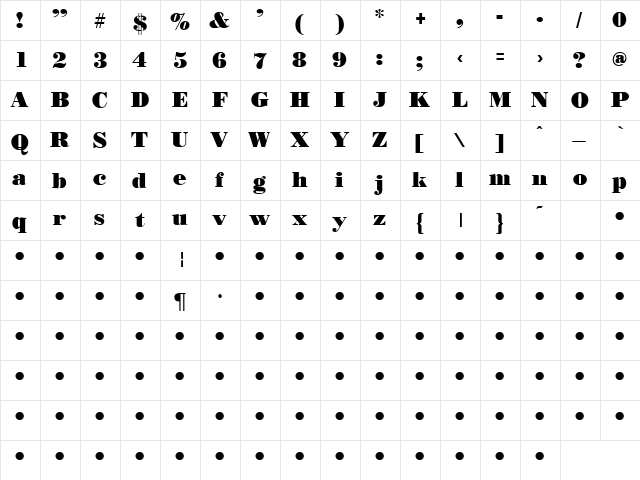
QTBodiniPoster Regular
Design Context for QTBodiniPoster Typeface
QTBodiniPoster is a composed and adaptable typeface that performs quietly and consistently across a wide range of design contexts.